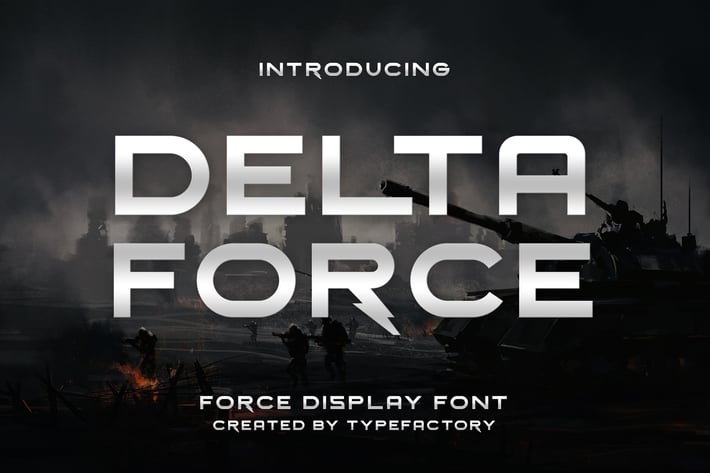
Delta Force - Force Display Font
Delta Force is a display font.
It embodies toughness and authenticity and is the perfect choice for a force or army-themed design.
Add this fun display font to your designs and notice how it makes them come alive!